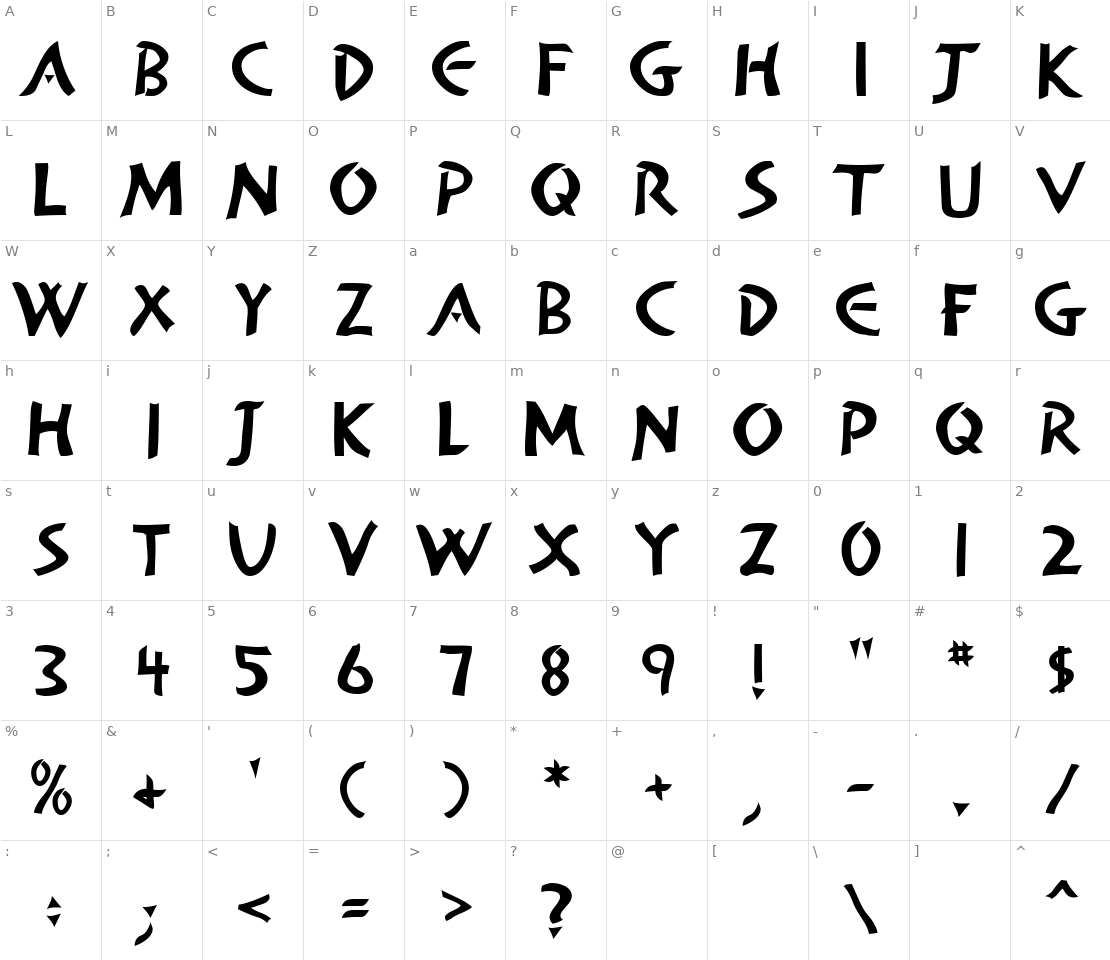
Alan Den
Alan Den is a bold, angular display face from Unauthorized Type with letterforms that borrow visual cues from East Asian brush calligraphy, reinterpreted through a Western uppercase alphabet. The strokes are thick and deliberate, with sharp angles and decorative flares that give it an exotic, eye-catching quality. Best used for headlines, posters, and restaurant branding where you want something bold and culturally evocative without relying on actual CJK characters.